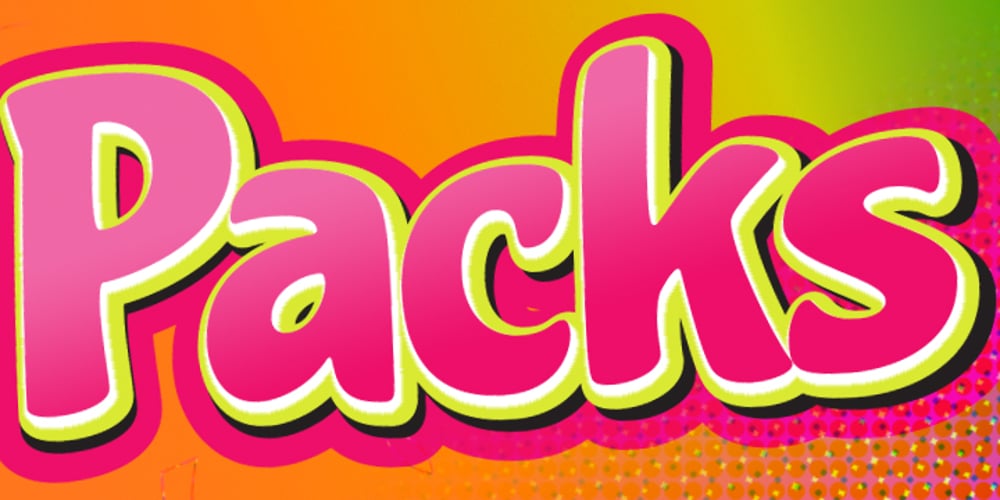
Cupcake Font Family was designed by Alejandro Paul, Angel Koziupa and published by Sudtipos. Cupcake contains 1 styles and family package options. Cupcake is a font for those with a sweet tooth. It flares the taste buds with its creamy construct and makes them drool over a sandwich, a pasta, a cupcake, or a sweet beverage in your favourite café. Another packaging accomplishment by Koziupa and Paul, Cupcake was designed specifically to appeal to the masses of the food and service industries. It covers all Latin-based languages.